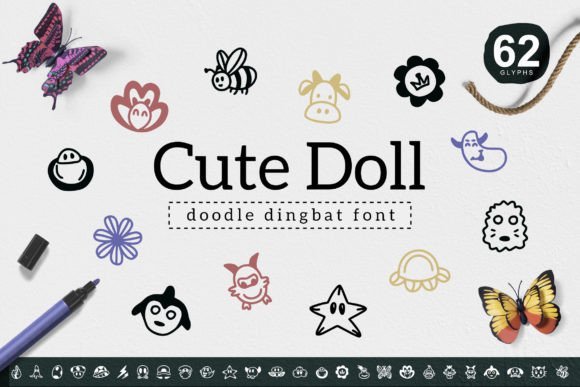
Bringing Joy to Your Designs: Introducing Cute Doll Font
Have you ever found yourself stuck in a creative rut, searching for the perfect font to bring a smile to your audience’s faces? That’s exactly what happened to me when I stumbled upon Cute Doll Font. As a designer, I was on the hunt for a font that would add a touch of whimsy and playfulness to my projects, and this adorable dingbats font delivered.
Cute Doll Font is a delightful and versatile tool perfect for a wide range of creative endeavors, from stickers and posters to t-shirts and apparel graphics. Its charming characters and designs make it an ideal choice for anyone looking to add a dash of cuteness to their work. Whether you’re a seasoned pro or a budding designer, this font is sure to bring a smile to your face and inspire your next project.
- Unique Characteristics: The font features a unique, whimsical design with a mix of childlike and feminine elements, making it perfect for creating a playful and endearing atmosphere in designs.
Cute Doll Font Review
I recently had the chance to work with the “Cute Doll Font” and here’s my honest review.
- The font’s playful and whimsical feel is perfect for projects that require a touch of innocence and charm.
- The character set is comprehensive, including a wide range of characters and symbols.
- The font’s design can come across as overly simplistic or childish for more complex projects.
- The font may not be suitable for professional or formal applications where a more serious tone is required.
- The font’s readability can be affected by the size and resolution of the output.
Overall, the “Cute Doll Font” is a delightful and charming font that is perfect for projects that require a playful and whimsical feel. While it may not be suitable for all projects, it’s a great option for designers who want to add a touch of innocence and charm to their work.
The Cute Doll Font is perfect for:
- Designing children’s party invitations and decorations
- Creating whimsical blog posts and social media content
- Developing brand identities for children’s clothing and accessory companies
- Adding a touch of playfulness to wedding invitations and decor